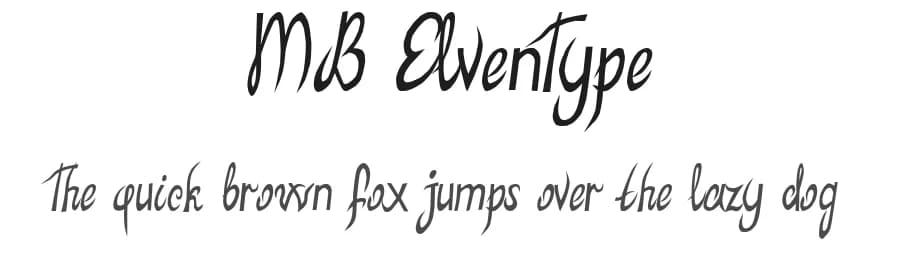
About MB ElvenType Font
MB ElvenType is a script & handwritten font designed by Irina ModBlackmoon. It includes 236 glyphs, a regular weight, TTF (TrueType) format, and 209 languages. MB ElvenType is free to download; check the license details on this page before commercial use. Script & handwritten fonts like MB ElvenType work best for wedding invitations, greeting cards, signatures, and elegant branding.
MB ElvenType Font is a script font that shines as a display or heading face. Pair it with a clean sans-serif or serif font for body text β the contrast creates a clear hierarchy while the two styles stay balanced and easy to read.
MB ElvenType Font is a script handwritten typeface by Irina ModBlackmoon, ideal for logos, invitations, branding, and creative projects.